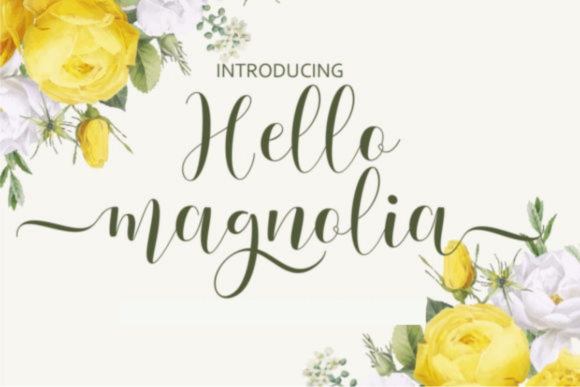
Adenman Posted April 30 Share Posted April 30 Hello Magnolia is a beautiful and refined script font. It has a classy, elegant and modern look that can be used for logos, branding, invitations, stationery, wedding designs, social media posts, and much more! Hello Magnolia is PUA encoded which means you can access all of the glyphs and swashes with ease! Compatibility: windows & apple/mac & linux Giveaway Link –> https://www.creativefabrica.com/product/hello-magnolia/ MrZeb, aum, vhick and 2 others 2 3 Link to comment Share on other sites More sharing options...